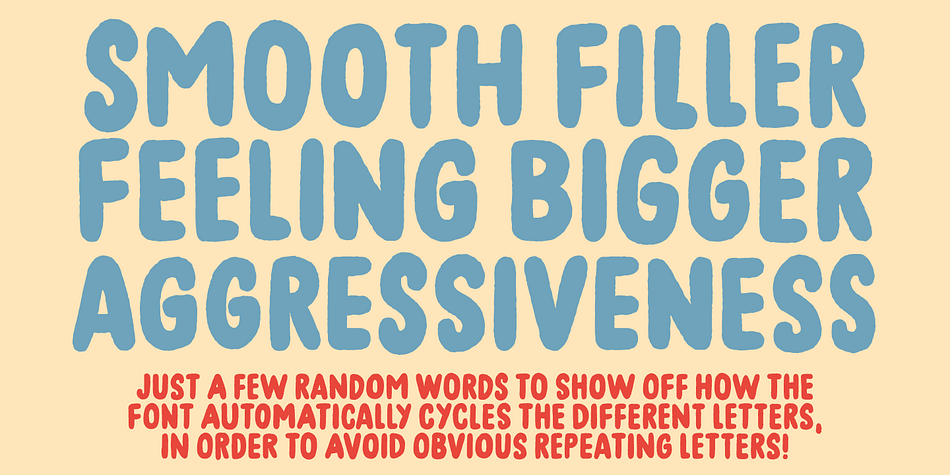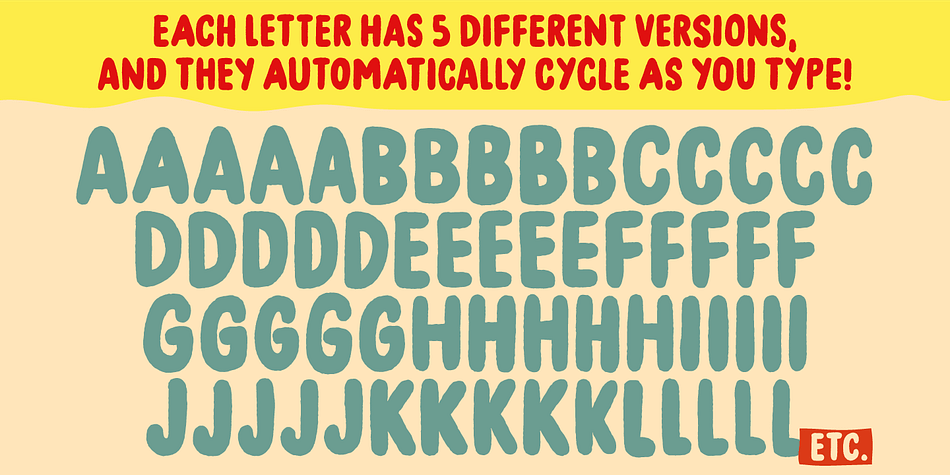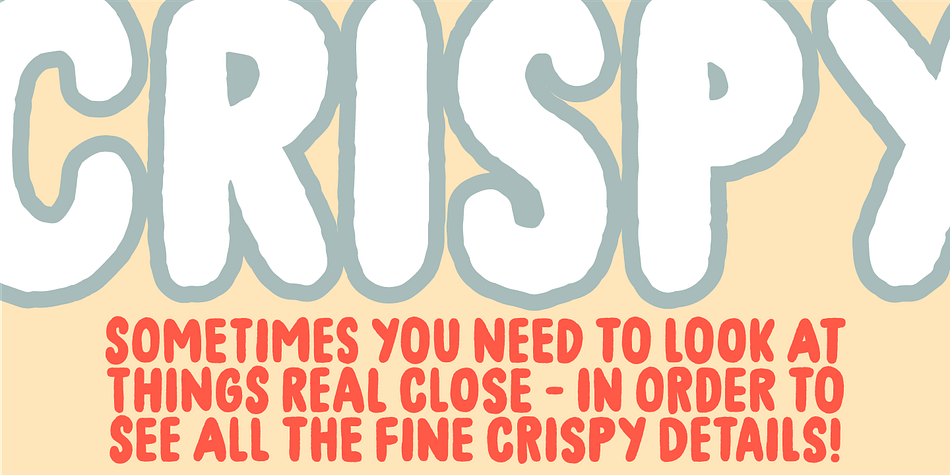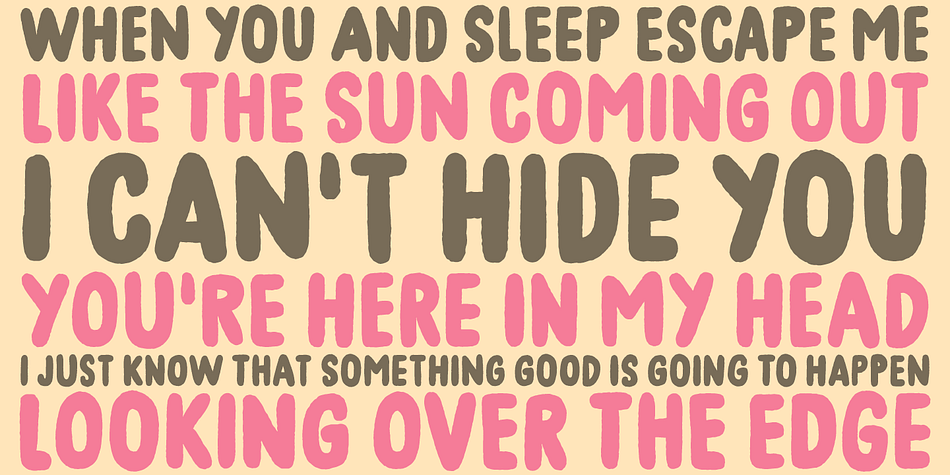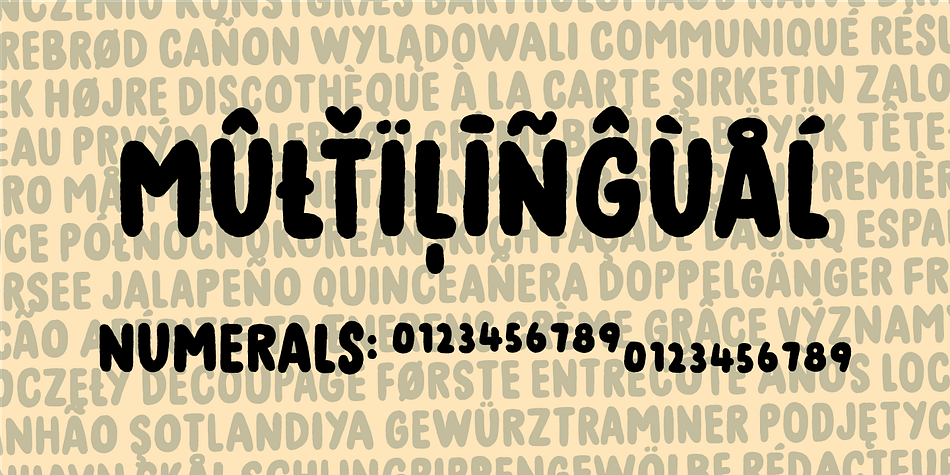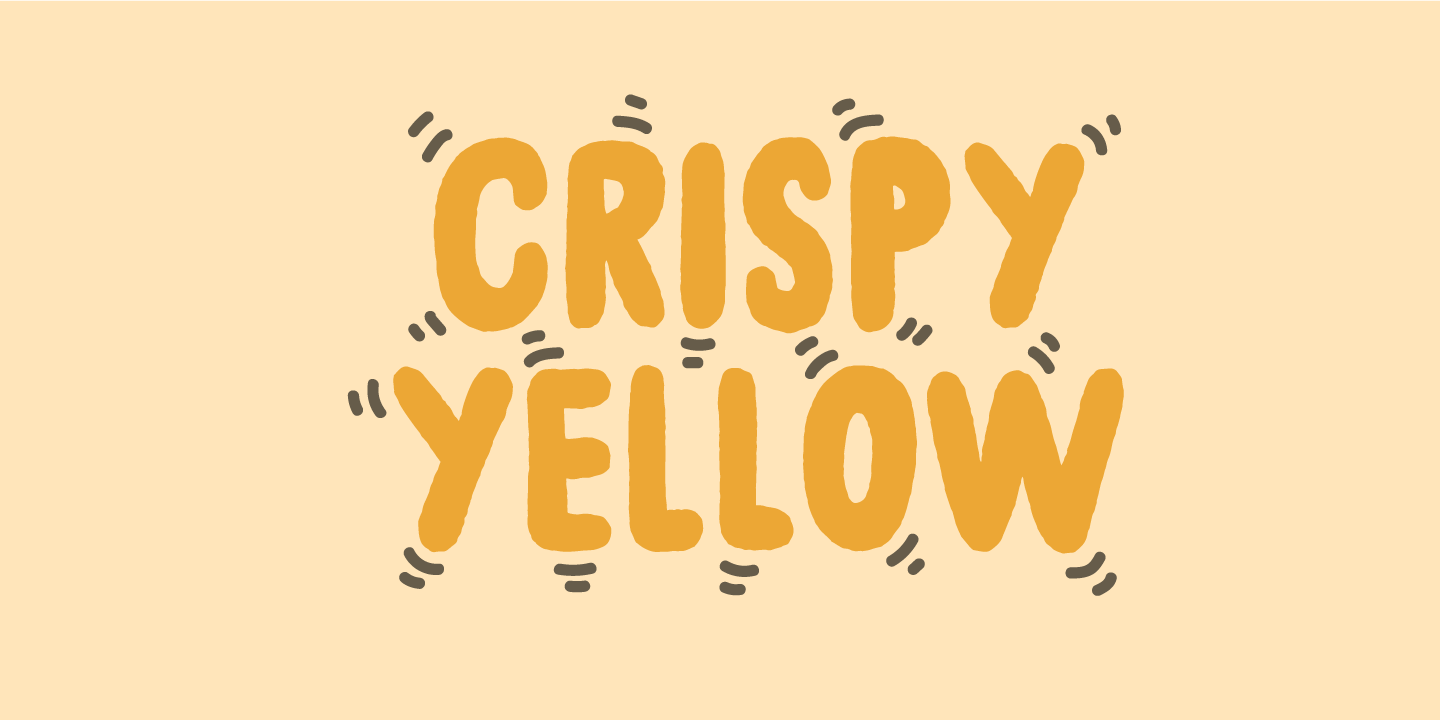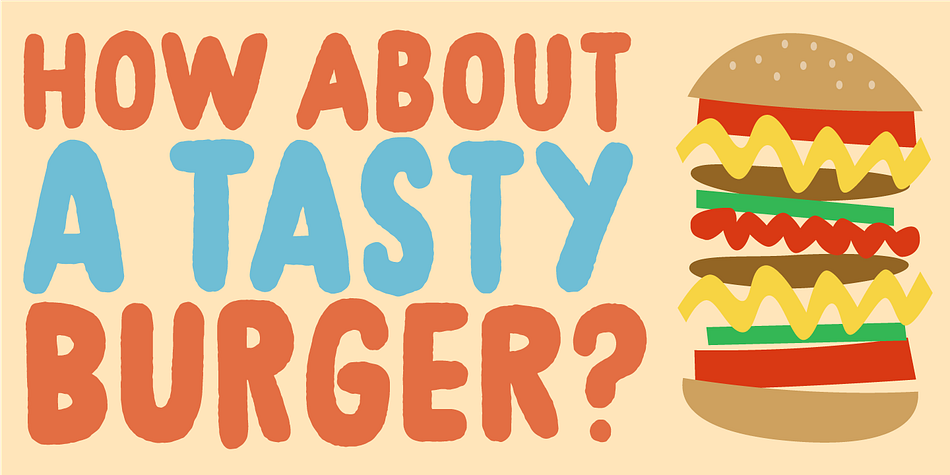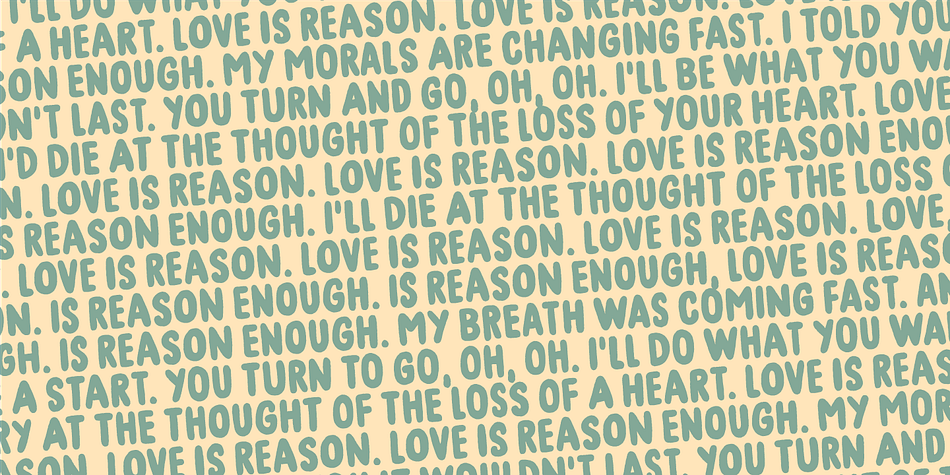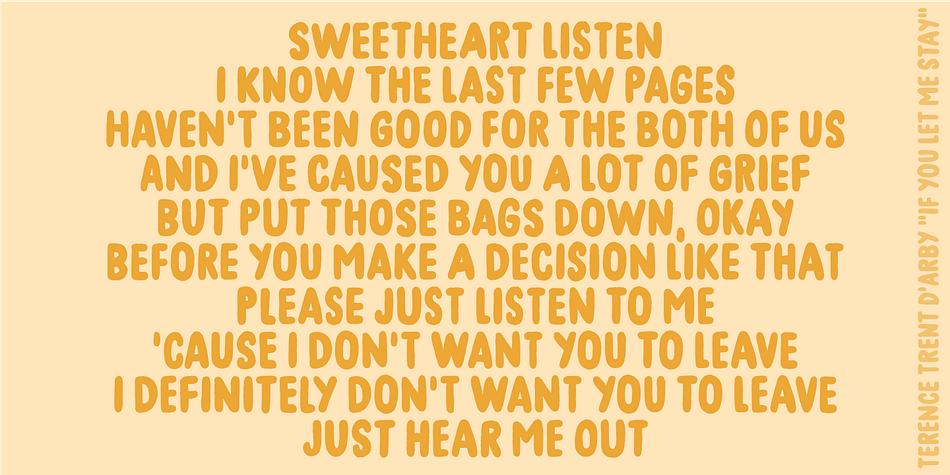
CRISPY YELLOW
Designed by Jakob Fischer, Crispy Yellow is a display sans, hand display and kids font family. This typeface has two styles and was published by Bogstav.
It’s handmade, organic, all-caps and crispy! Just like a tasty treat or a lovely cake!
I’ve added 5 slightly different versions of each letter, and they cycle as you type (no obvious repeating letters!)
Of course, it’s multilingual as well!